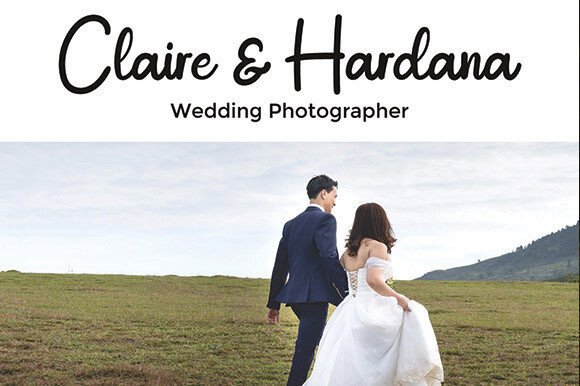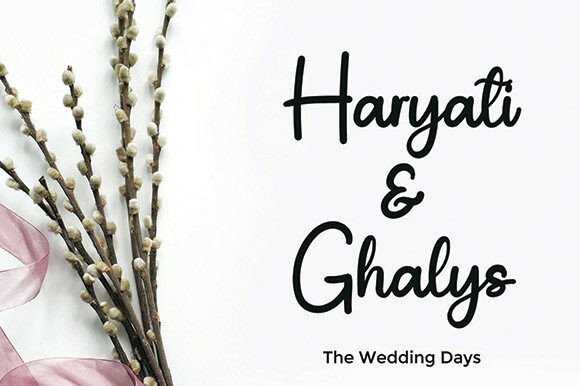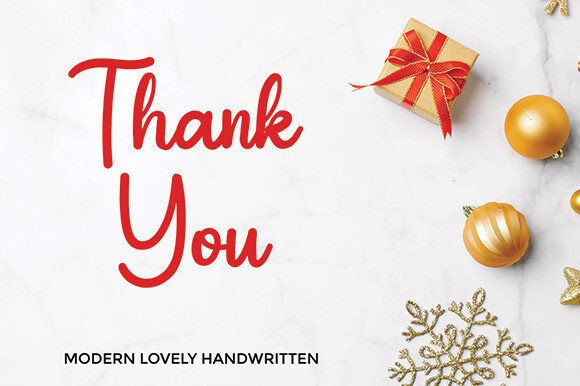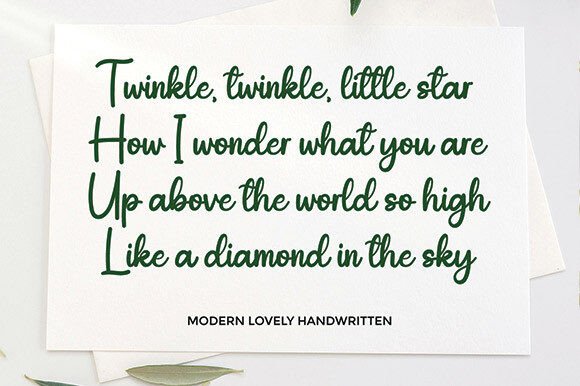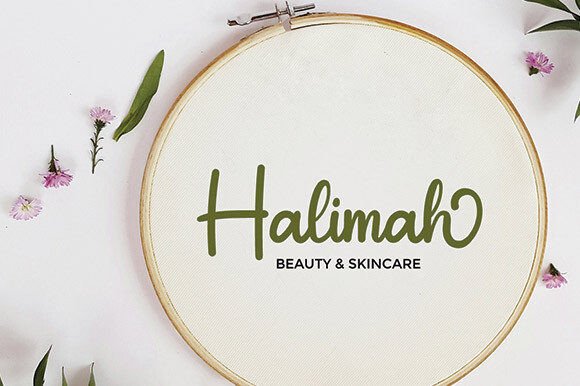
The Sweet Charm of Carmilla Font: A Designer’s Delight
I still remember the time I was working on a project for a fashion brand, and I was struggling to find the perfect font to capture their elegant yet playful vibe. That’s when I stumbled upon Carmilla Font, and it instantly became my go-to choice. In this article, I’ll share my experience with Carmilla Font, its features, and how to make the most of it in your designs.
An Honest Review of Carmilla Font
Carmilla Font has won my heart with its sweet and dainty script style. Here are some things I love about it:
- ✨ Elegant and refined, perfect for high-end brands or luxury products
- 💕 Beautifully crafted, with a touch of playfulness and whimsy
- 🎨 Versatile, suitable for various design projects, from quotes to logos, blog headers, posters, ribbons, fashion, clothing, letters, invitations, stationery, and more
While Carmilla Font is an excellent choice, it’s not without its quirks. Here are a few things to keep in mind:
- 🤔 Limited character set, which may not be suitable for projects requiring a wide range of special characters
- ⚠️ May not be the best choice for body text, as it’s designed primarily for display purposes
A Practical Guide to Using Carmilla Font
- Explore OpenType features, such as glyphs and stylistic alternates, to add depth and personality to your design
- Use the “Font” dialog box to access OpenType features, such as ligatures and stylistic alternates
The Backstory of Carmilla Font
Carmilla Font was designed with the goal of creating a beautiful and elegant script font that would capture the essence of luxury and sophistication. The designer drew inspiration from classic calligraphy and refined it with modern twists, resulting in a font that’s both timeless and trendy.
| What is Carmilla Font best suited for? | Carmilla Font is perfect for designs that require a touch of elegance and sophistication, such as luxury brands, high-end products, and creative projects. |